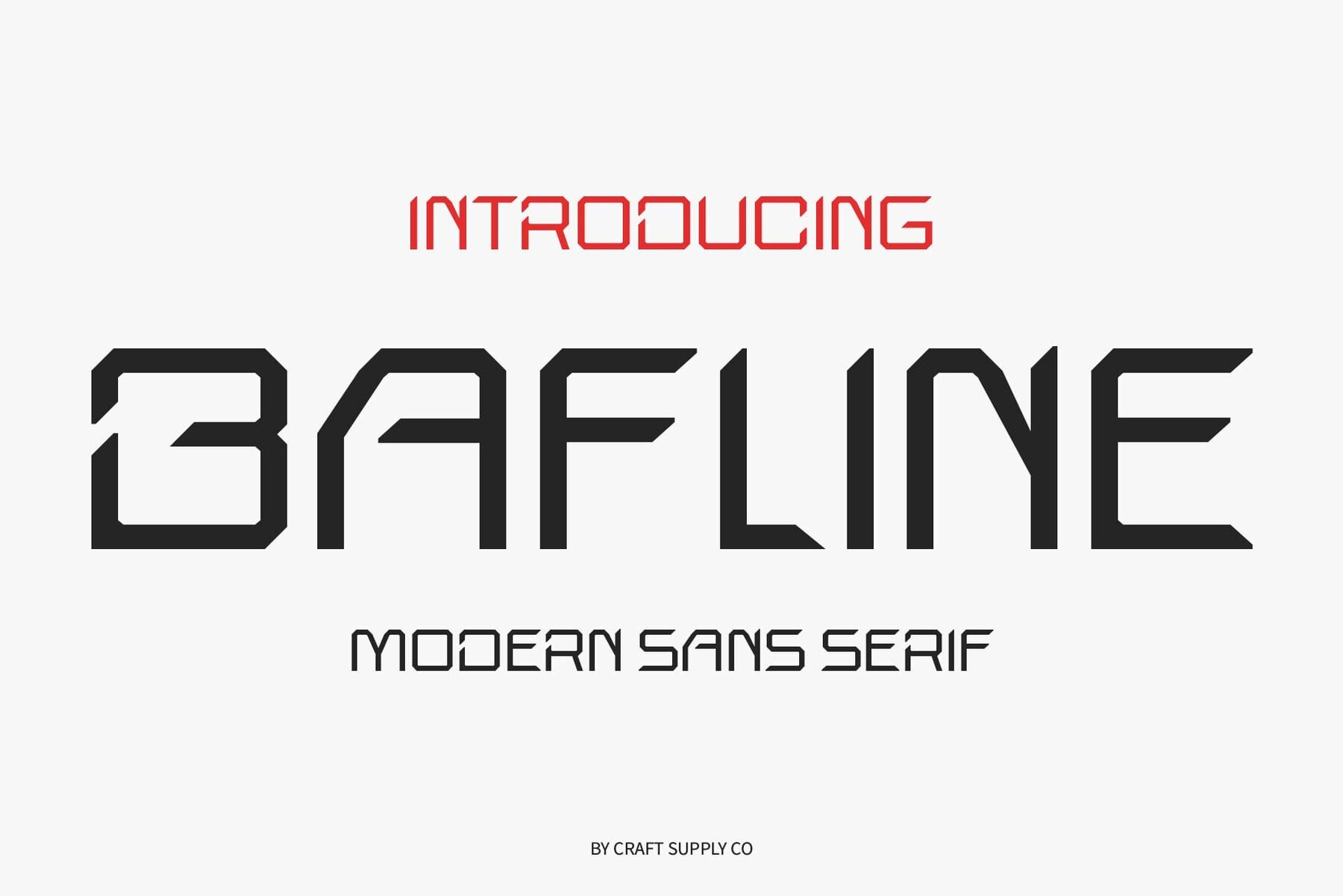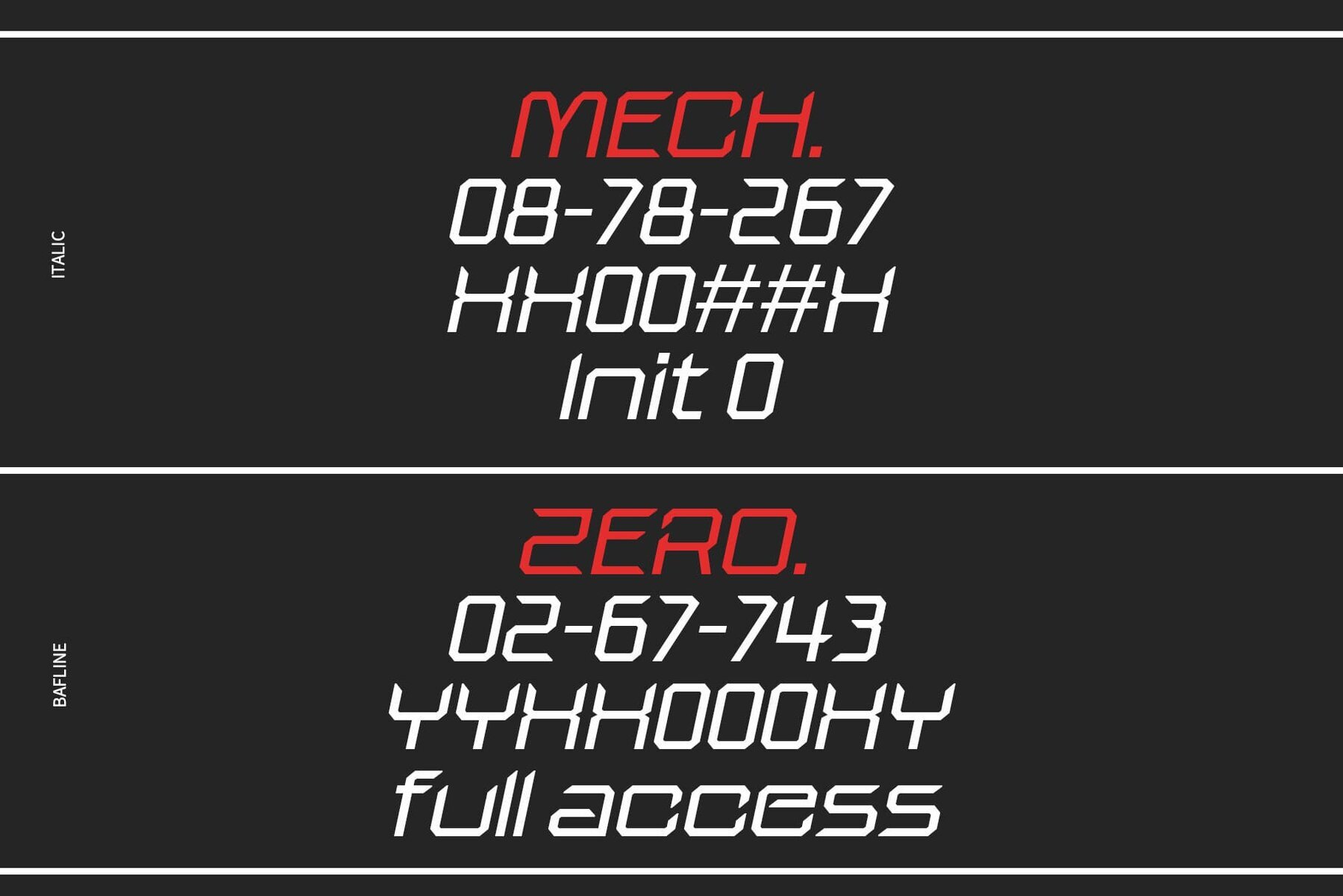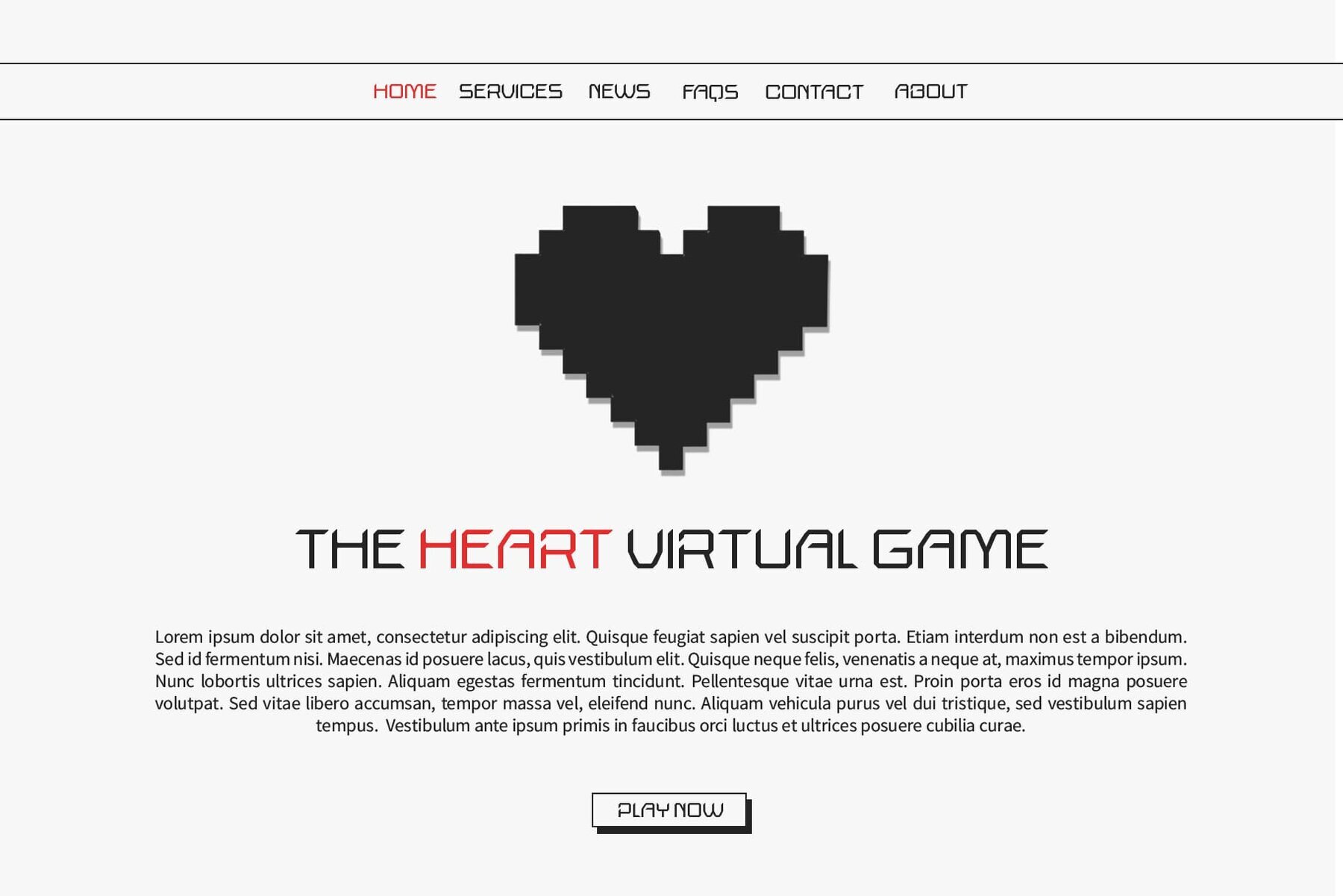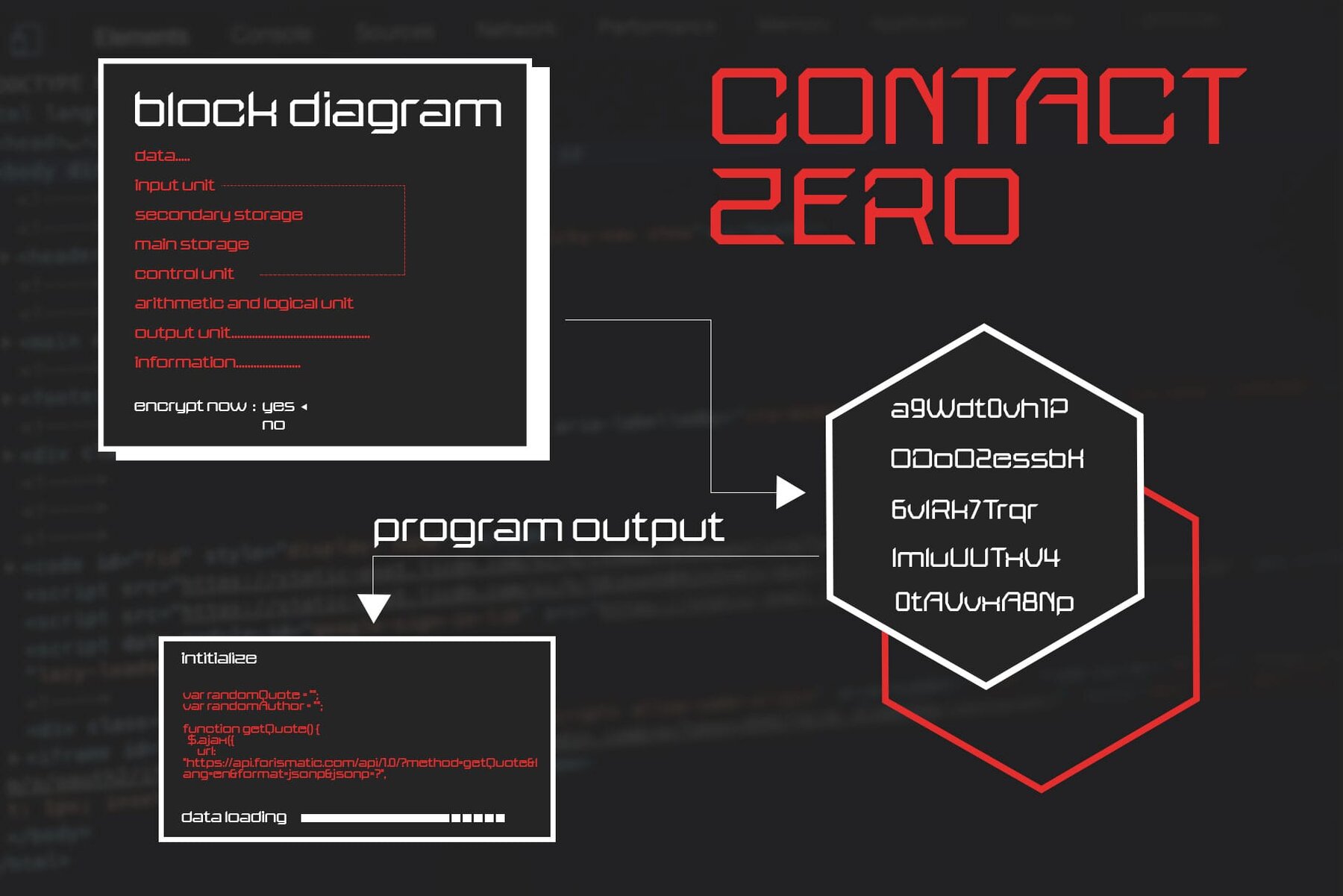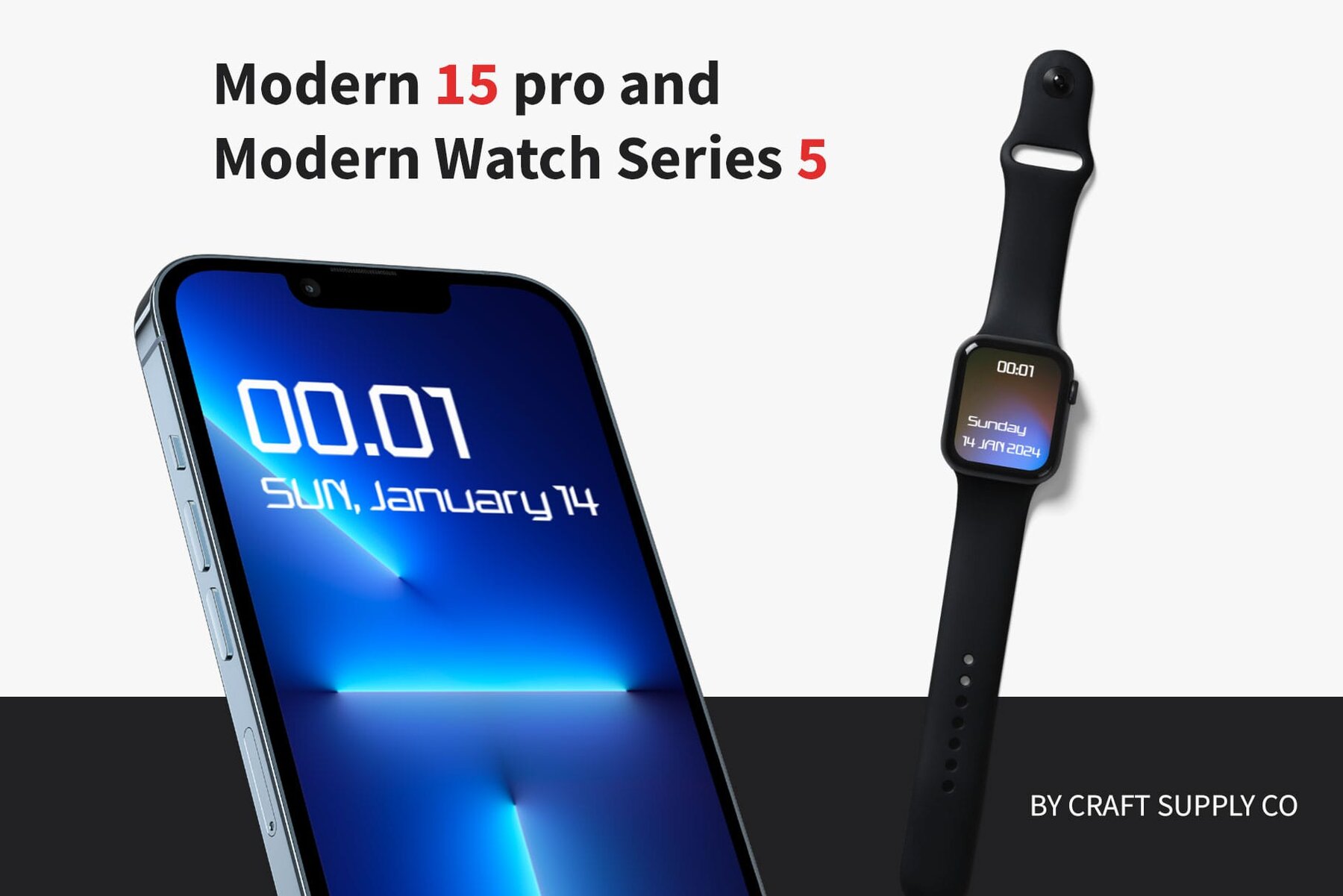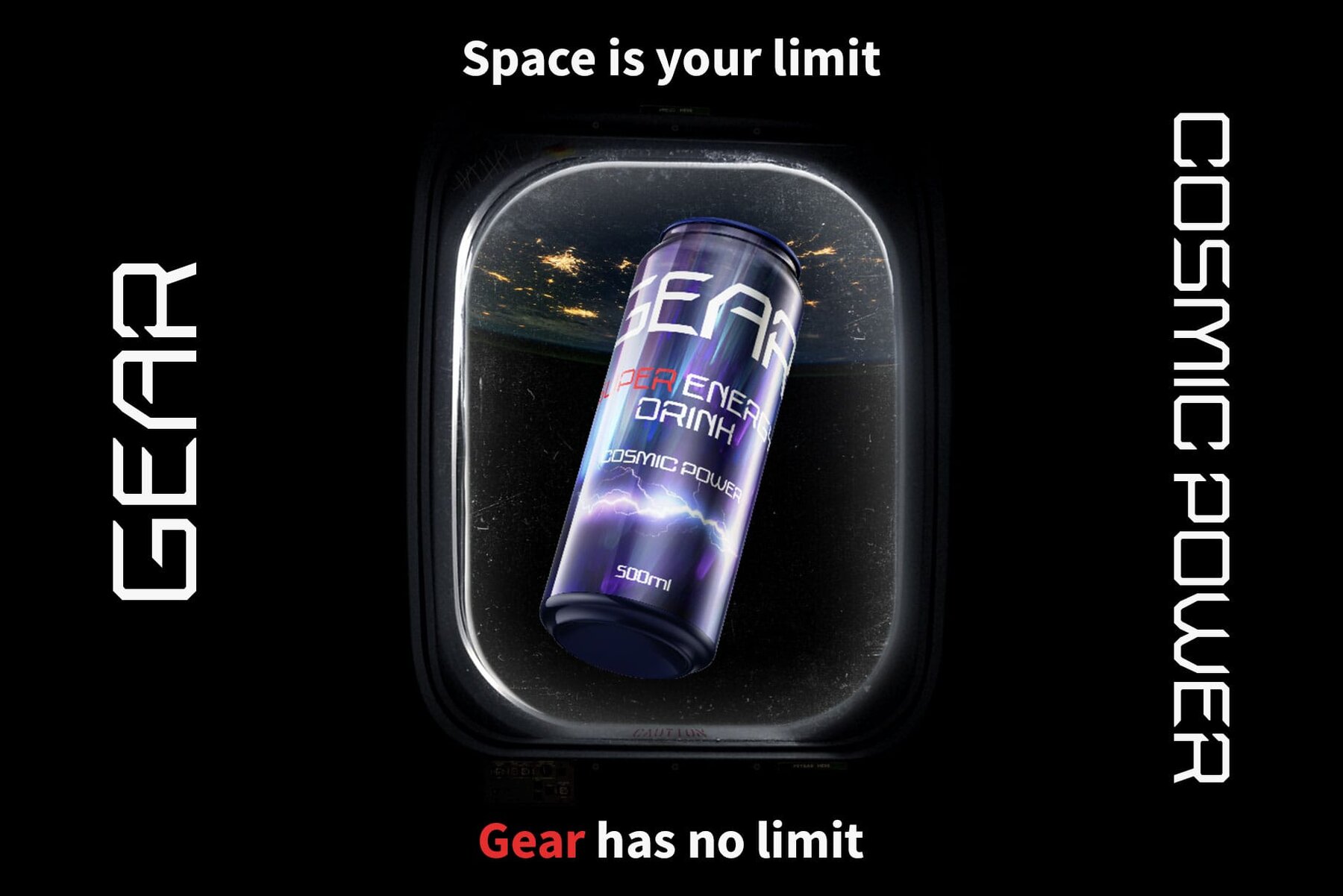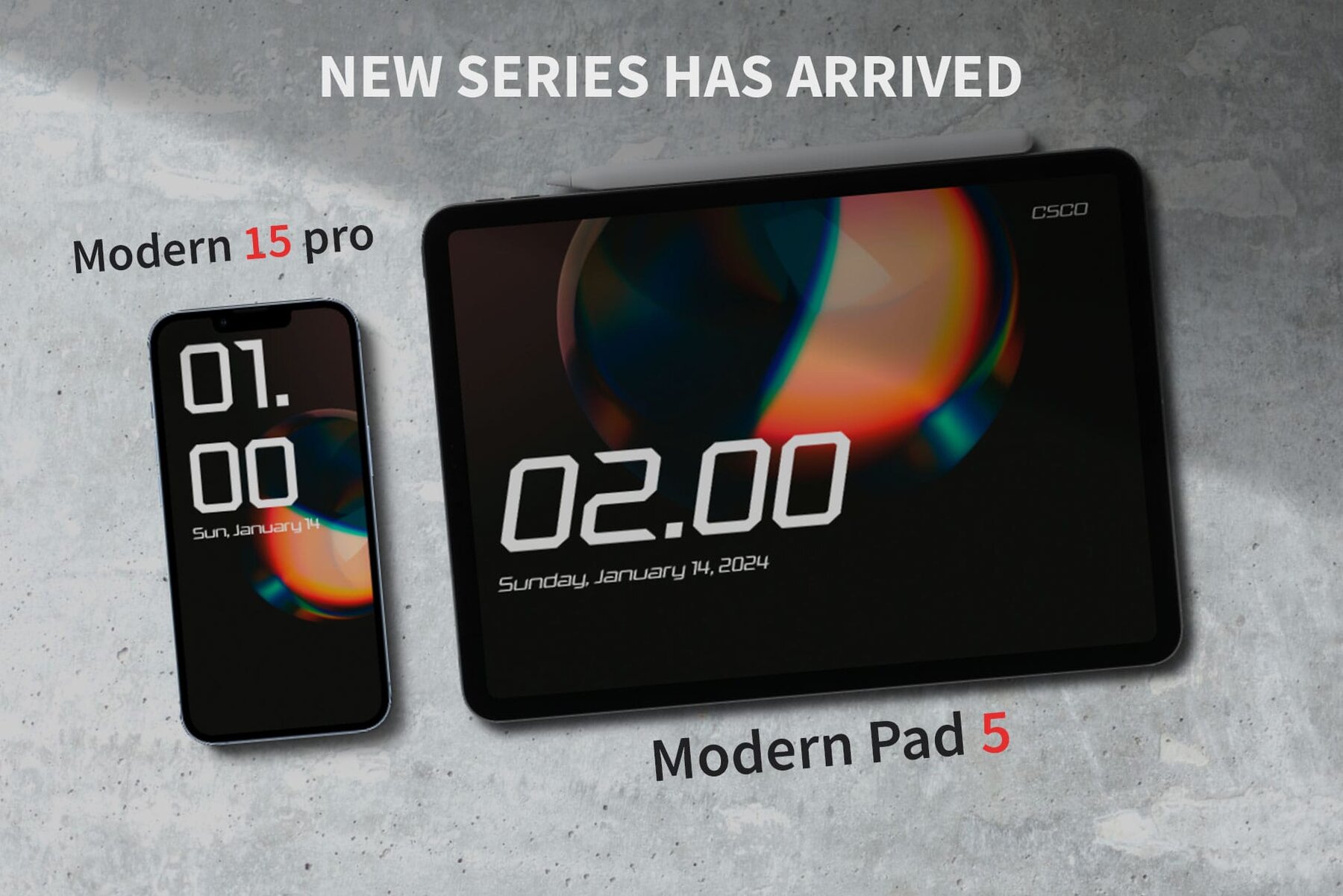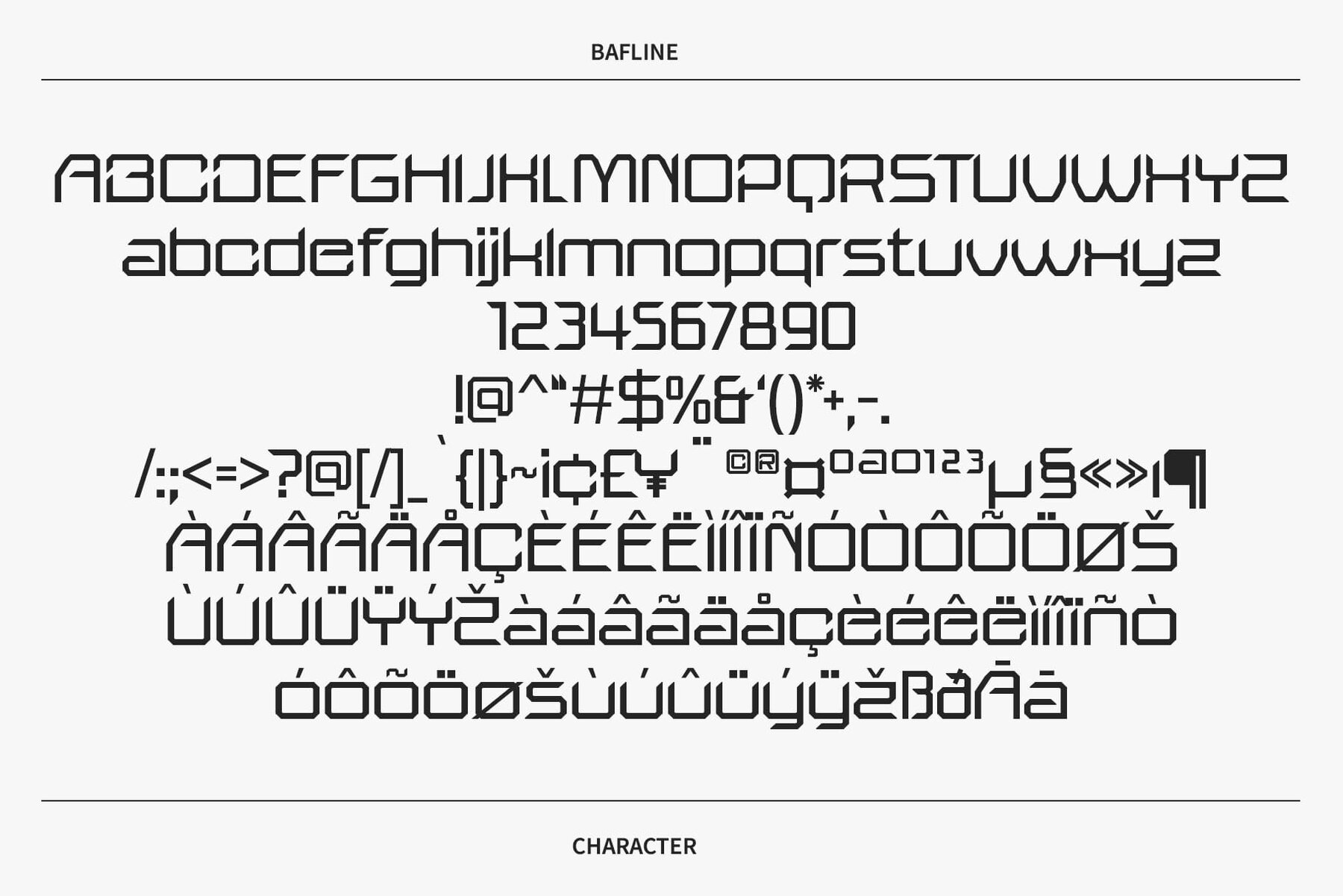
Bafline Font
Bafline is a groundbreaking sans serif font that draws inspiration from the future, featuring a sleek and innovative design that transcends traditional typographic boundaries. In the realm of typography, Bafline stands as a beacon of cutting-edge aesthetics. Its futuristic shapes and contours redefine what's possible in modern font design. Bafline's versatility knows no bounds. Whether in digital interfaces, print media, or branding, it effortlessly embodies the essence of contemporary and futuristic design. Step into the future of design with Bafline. Enhance your projects with a font that not only keeps pace with modernity but propels your creative expressions into uncharted territories. Bafline is more than a font; it’s a testament to the limitless potential of design. Embrace the future of typography with Bafline, where innovation meets expression, and creativity knows no bounds. You can use this typeface without needing any specialized software. If you have any inquiries or need assistance, please feel free to contact us. We appreciate your support in enhancing your creative projects!Bafline Font: A Glimpse into the Future of Typography
Futuristic Form
Versatile Modernity